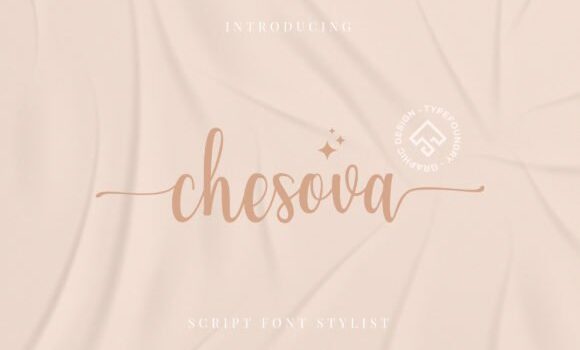
chesova
Chesova Font – Free Download Introduction to Chesova Font Chesova is a stylish and refined handwritten font. 📸 Preview Gallery 6 images 📌 Product Name Chesova Font 👤 Author Crealova 📂 Category Explore ⬇️ Download Chesova Font FREE Free Download